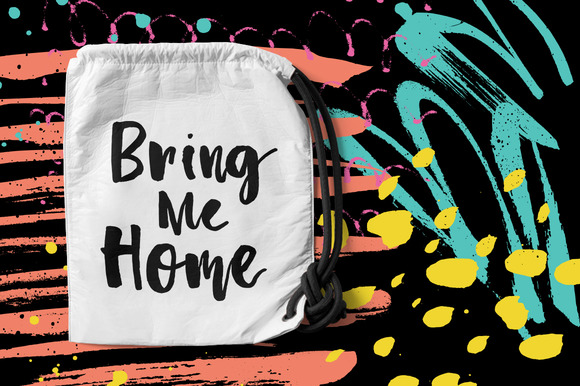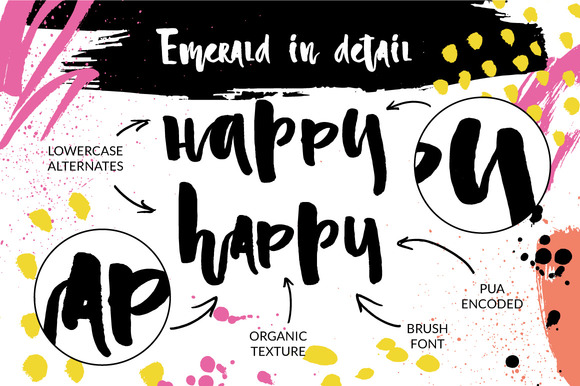
Emerald Font
db-ku.com - Script & Handwritten -- Emerald is a unique brush font. The Emerald font features a dancing baseline and offers some unique variations of lowercase letters.